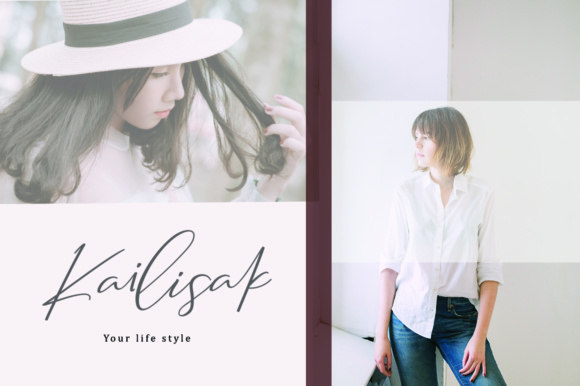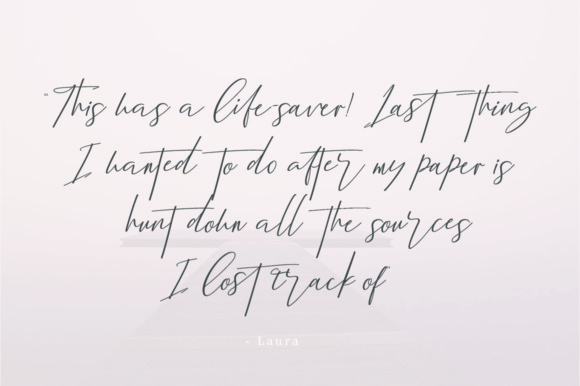
The Bethany is a modern calligraphy script in a handwriting style.
It’s perfect for branding, wedding invites, magazines, mugs, business cards, quotes, posters, and more!
The Bethany is a modern calligraphy script in a handwriting style.
It’s perfect for branding, wedding invites, magazines, mugs, business cards, quotes, posters, and more!